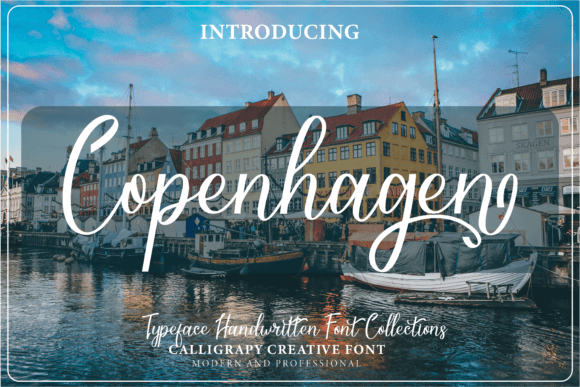
Copenhagen Font: Elevate Your Design with Elegance and Charm
Copenhagen is a stunning script font that embodies the essence of luxury and sophistication. With its fluid strokes, intricate details, and charming aesthetic, it has become a popular choice among designers and creatives. In this article, we’ll delve into the world of Copenhagen Font, exploring its features, uses, and benefits, as well as provide tips on how to incorporate it into your design projects.
The Characteristics of Copenhagen Font
Copenhagen Font is a script font that boasts fluid strokes, intricate details, and a charming aesthetic. Its elegant and refined design makes it perfect for adding a touch of sophistication to any design project. The font features:
- Fluid strokes: Copenhagen Font has smooth, flowing strokes that give it a sense of movement and elegance.
- Intricate details: The font features intricate details, such as flourishes and swashes, that add to its luxurious feel.
- Charming aesthetic: Copenhagen Font has a charming and inviting aesthetic that makes it perfect for designs that require a touch of personality.
Uses of Copenhagen Font
Copenhagen Font is a versatile font that can be used in a variety of design projects, including:
- Invitations: Copenhagen Font is perfect for creating elegant and sophisticated invitations for weddings, parties, and other special events.
- Branding: The font’s luxurious feel makes it ideal for branding projects that require a high-end aesthetic.
- Headlines: Copenhagen Font can be used to create stunning headlines for magazines, newspapers, and online publications.
- Packaging: The font’s elegant design makes it suitable for packaging designs that require a touch of sophistication.
Benefits of Using Copenhagen Font
Using Copenhagen Font in your design projects offers several benefits, including:
- Elegance: Copenhagen Font adds a touch of elegance and sophistication to any design project.
- Versatility: The font’s versatility makes it suitable for a wide range of design projects.
- Uniqueness: Copenhagen Font’s unique design sets it apart from other fonts, making it perfect for designers who want to create distinctive designs.
- Easy to read: Despite its intricate details, Copenhagen Font is easy to read, making it suitable for body text and headlines.
Tips for Using Copenhagen Font
To get the most out of Copenhagen Font, follow these tips:
- Use it sparingly: Copenhagen Font’s elegance and sophistication can be overwhelming if used excessively. Use it sparingly to create a lasting impact.
- Pair it with a sans-serif font: Pairing Copenhagen Font with a sans-serif font creates a beautiful contrast that adds to its elegance.
- Experiment with colors: Copenhagen Font looks stunning in a variety of colors. Experiment with different colors to find the one that works best for your design.
- Pay attention to spacing: Copenhagen Font’s intricate details require adequate spacing to ensure that the text remains legible.
Copenhagen Font: The Perfect Choice for Luxury Brands
Copenhagen Font is the perfect choice for luxury brands that want to create a high-end aesthetic. Its elegant design, fluid strokes, and intricate details make it ideal for:
- Luxury packaging: Copenhagen Font is perfect for creating luxurious packaging designs that reflect the brand’s high-end values.
- Brand identity: The font’s elegant design makes it suitable for creating a strong brand identity that exudes sophistication and luxury.
- Advertising: Copenhagen Font can be used to create stunning advertisements that capture the attention of high-end consumers.
Copenhagen Font is a stunning script font that embodies elegance, charm, and sophistication. Its fluid strokes, intricate details, and charming aesthetic make it perfect for a wide range of design projects, from invitations and branding to headlines and packaging. With its versatility, uniqueness, and ease of use, Copenhagen Font is an excellent choice for designers who want to create luxurious and high-end designs.
- What is Copenhagen Font? Copenhagen Font is a script font that features fluid strokes, intricate details, and a charming aesthetic.
- What is Copenhagen Font used for? Copenhagen Font is used for a variety of design projects, including invitations, branding, headlines, and packaging.
- Is Copenhagen Font easy to read? Yes, Copenhagen Font is easy to read, despite its intricate details.